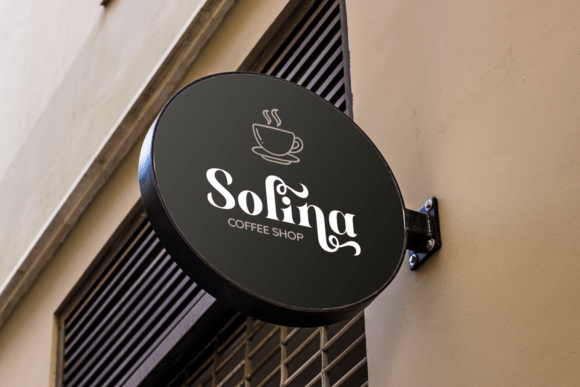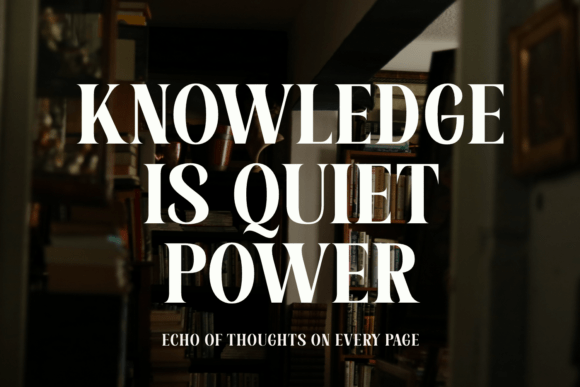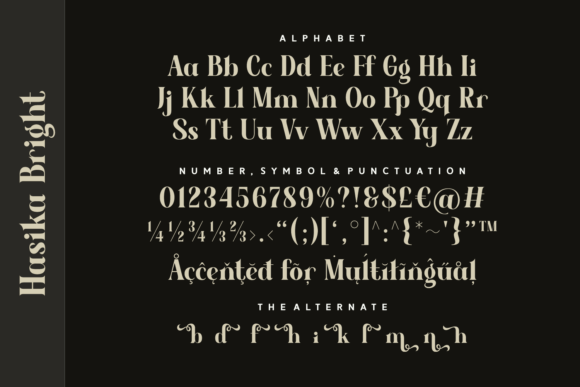
Introducing Hasika Bright Font: Elevate Your Designs with Elegance and Sophistication
In the world of typography, fonts play a crucial role in conveying the tone and personality of a brand or creative project. For designers and crafters seeking to add a touch of glamour and class to their work, Hasika Bright Font is an exceptional choice. This elegant serif font seamlessly blends modern refinement with bold character, making it perfect for a wide range of applications, from branding and fashion magazines to luxury packaging, logos, and editorial design.
The Distinctive Features of Hasika Bright Font
Hasika Bright Font boasts several distinctive features that set it apart from other fonts. Its high contrast strokes, which combine thick and thin lines, create a dramatic and sophisticated look. The font’s graceful serifs add a touch of elegance, while its unique decorative swashes provide a creative flourish. These swashes can be used to add a personal touch to headings, titles, and other design elements, making them ideal for luxury brands and high-end publications.
Applications for Hasika Bright Font
With its stylish curves and sophisticated personality, Hasika Bright Font is versatile and can be used in various creative projects. Some of the most suitable applications include:
- Branding: Establish a luxurious and refined brand identity with Hasika Bright Font. Its elegant appearance makes it perfect for high-end brands, fashion labels, and premium products.
- Fashion Magazines: Add a touch of glamour to your fashion magazine with Hasika Bright Font. Its bold character and sophisticated personality make it ideal for headlines, titles, and feature articles.
- Luxury Packaging: Elevate your luxury packaging with Hasika Bright Font. Its high contrast strokes and decorative swashes create a dramatic and eye-catching effect, perfect for high-end products.
- Logos: Create a sophisticated and memorable logo with Hasika Bright Font. Its unique decorative swashes and elegant serifs make it perfect for luxury brands and high-end businesses.
- Editorial Design: Add a touch of elegance to your editorial design with Hasika Bright Font. Its stylish curves and sophisticated personality make it ideal for articles, features, and other written content.
Why Choose Hasika Bright Font?
With so many fonts available, why choose Hasika Bright Font? Here are a few compelling reasons:
- Unique and Memorable: Hasika Bright Font’s distinctive features make it a standout choice for designers and crafters. Its unique decorative swashes and high contrast strokes create a memorable and eye-catching effect.
- Versatile: Hasika Bright Font is versatile and can be used in various creative projects, from branding and fashion magazines to luxury packaging, logos, and editorial design.
- Elegant and Sophisticated: Hasika Bright Font exudes elegance and sophistication, making it perfect for high-end brands, luxury products, and premium publications.
In conclusion, Hasika Bright Font is an exceptional choice for designers and crafters seeking to add a touch of glamour and class to their creative projects. Its elegant serif design, high contrast strokes, and unique decorative swashes make it a standout choice for branding, fashion magazines, luxury packaging, logos, and editorial design. With its stylish curves and sophisticated personality, Hasika Bright Font is sure to elevate your designs and make them truly unforgettable.
Whether you’re a designer, crafter, or simply someone who appreciates beautiful typography, Hasika Bright Font is definitely worth exploring. Its versatility, elegance, and sophistication make it an excellent addition to any creative project.